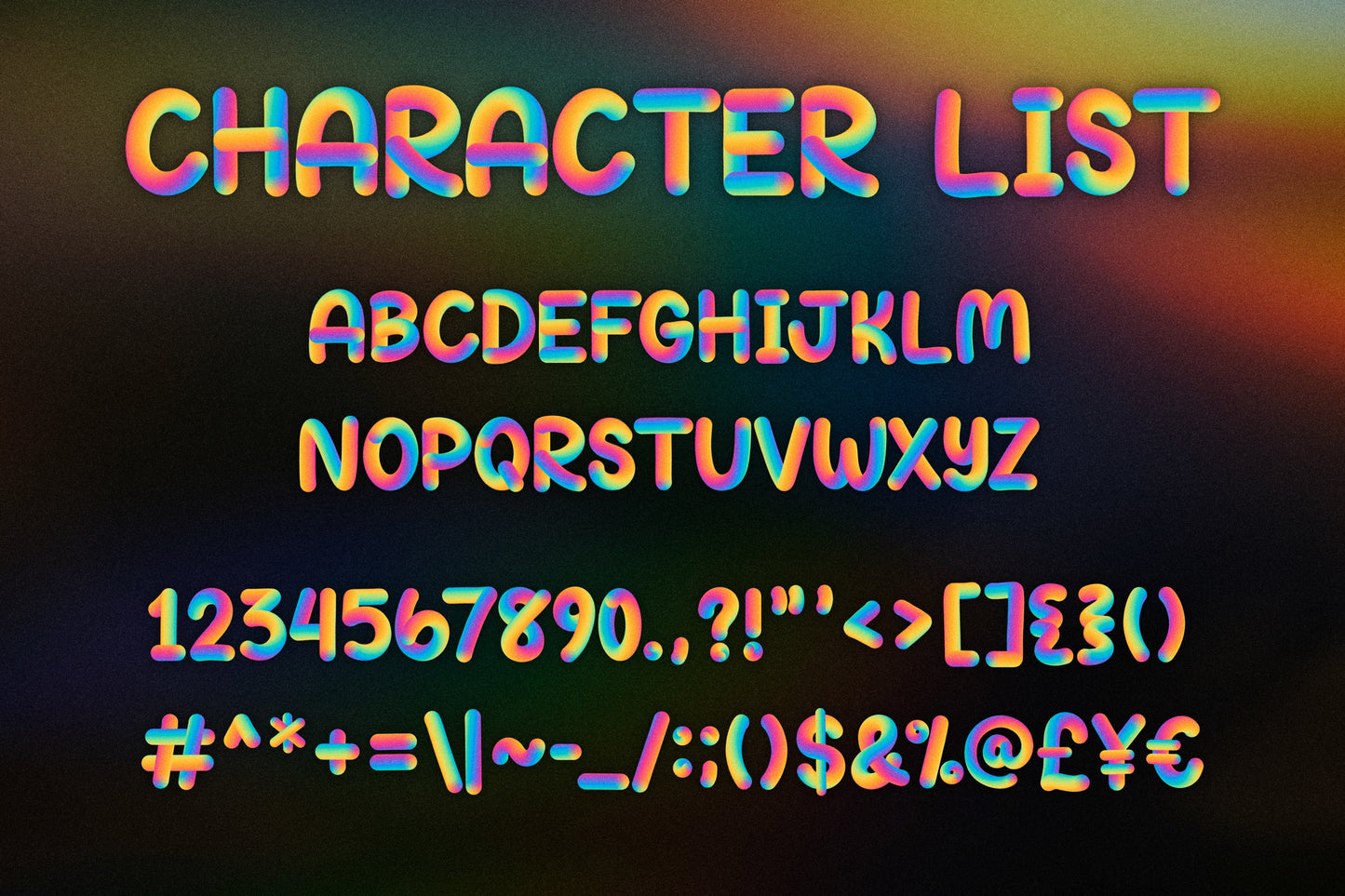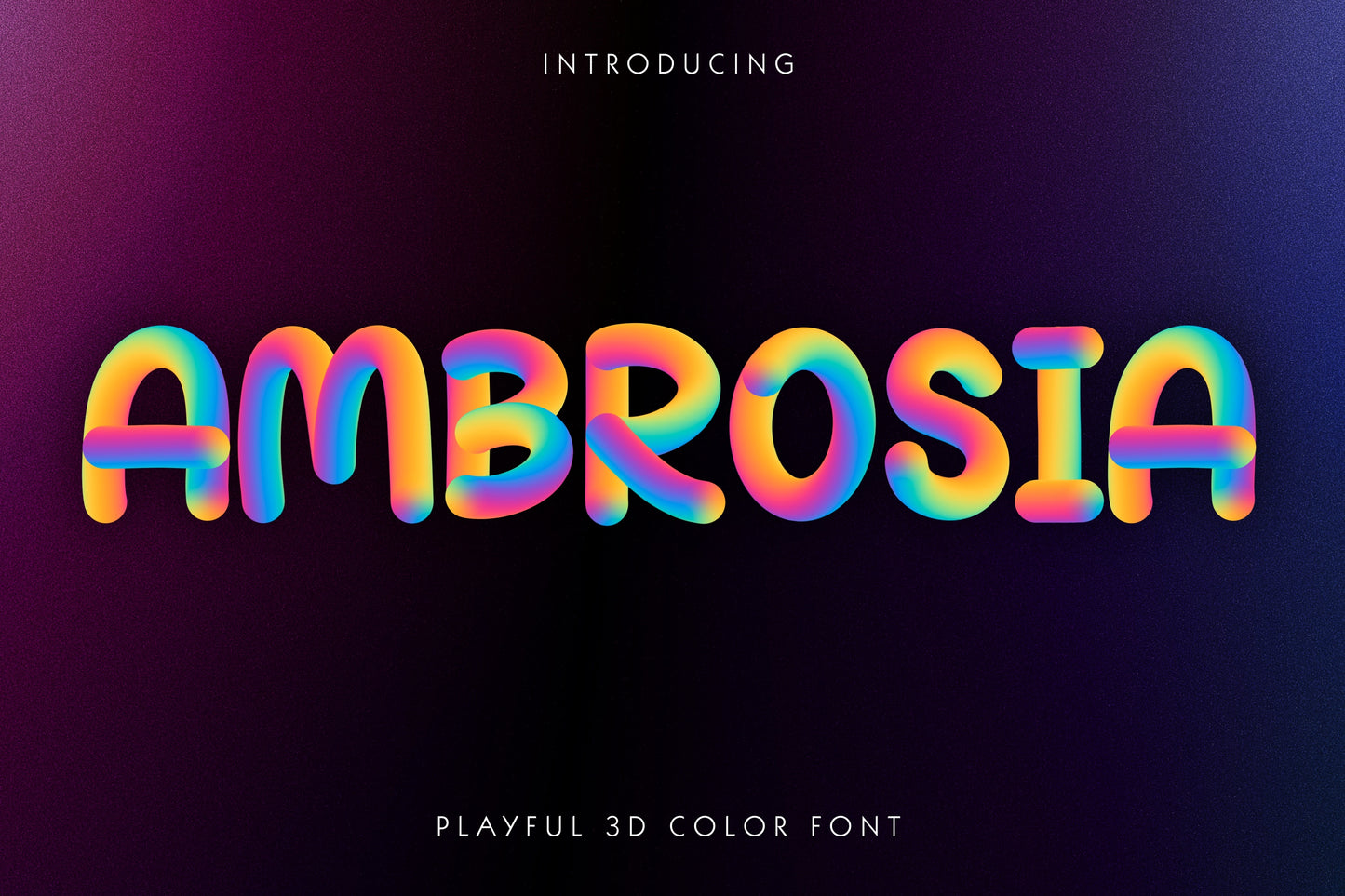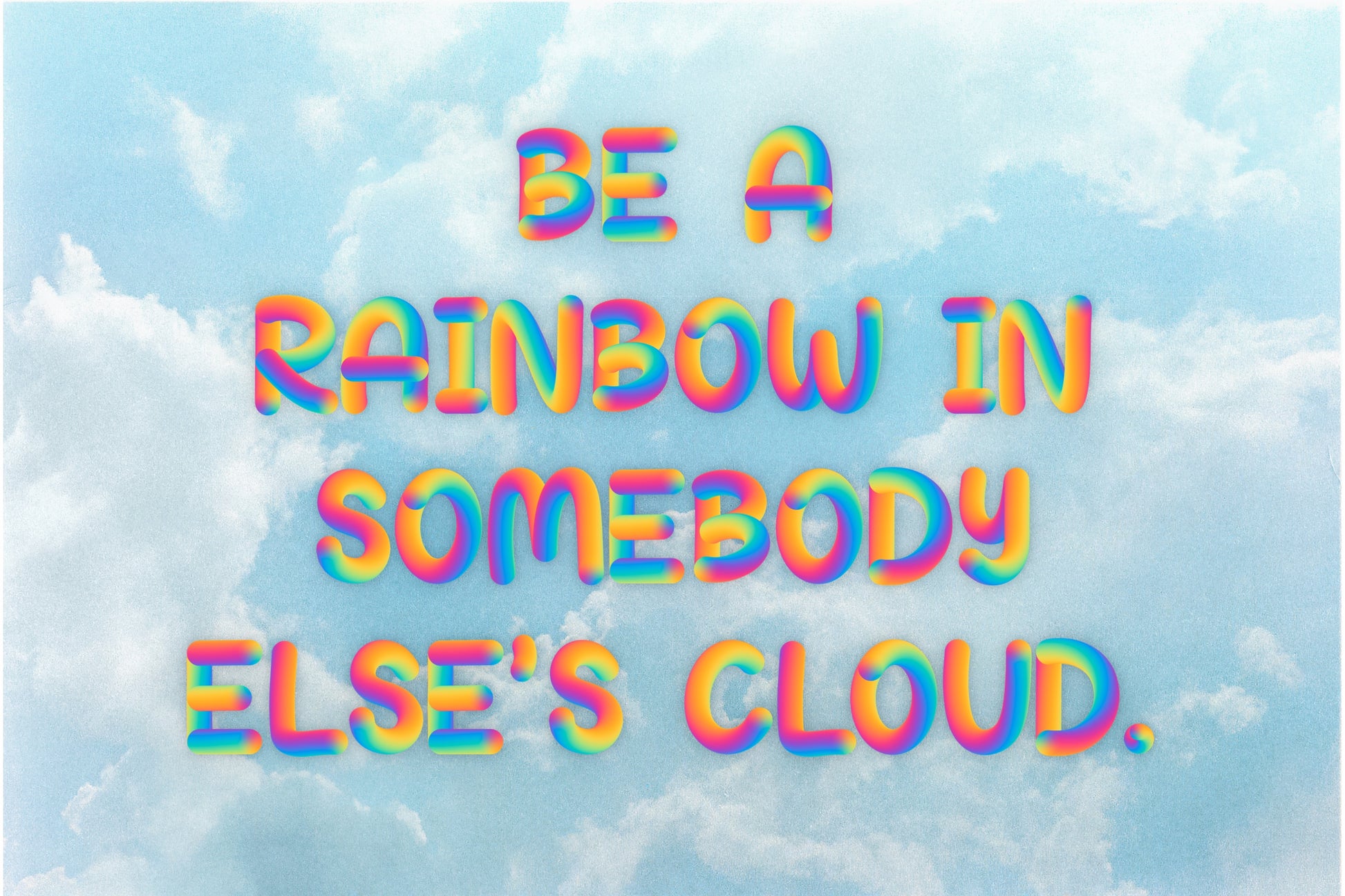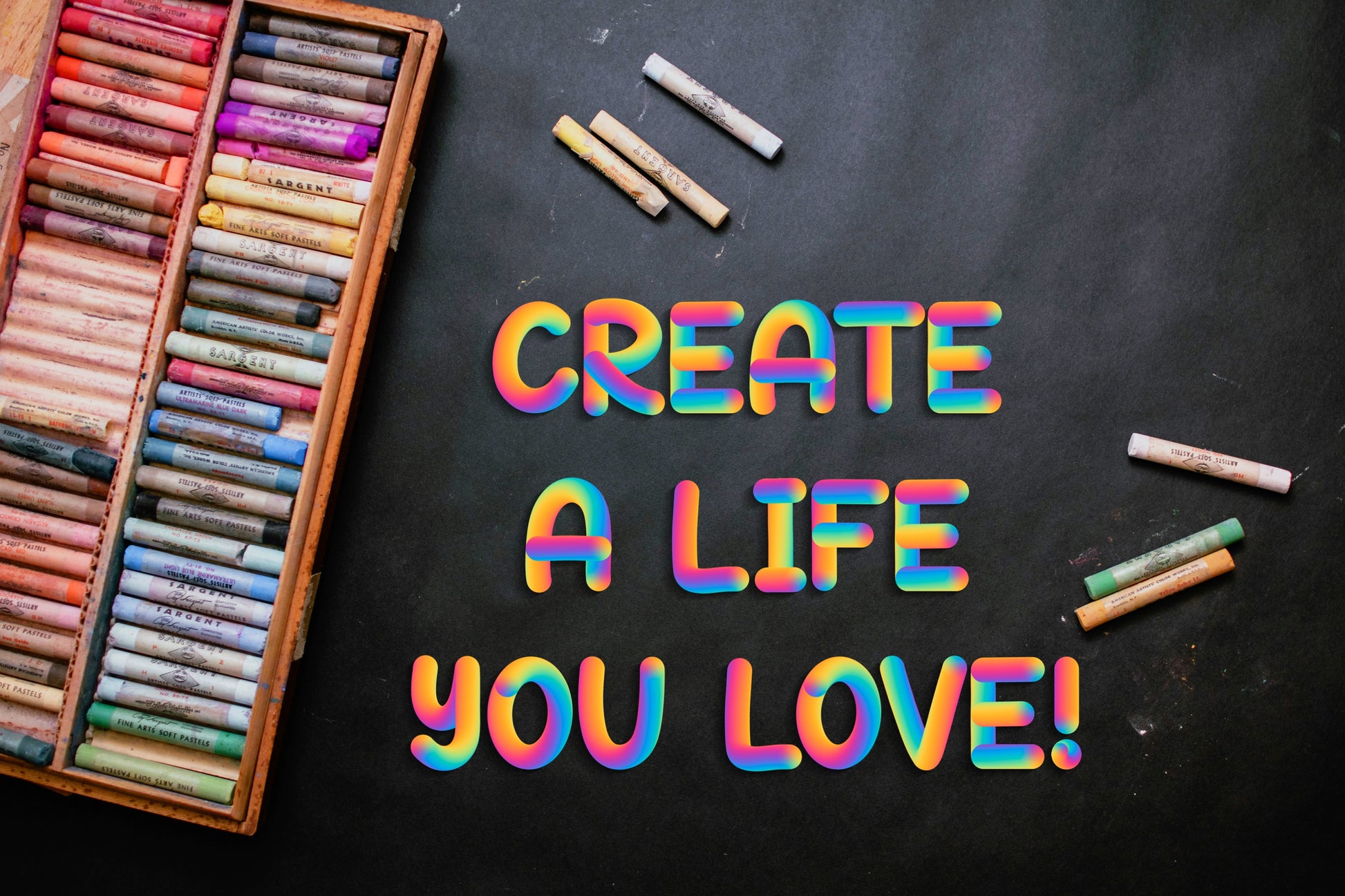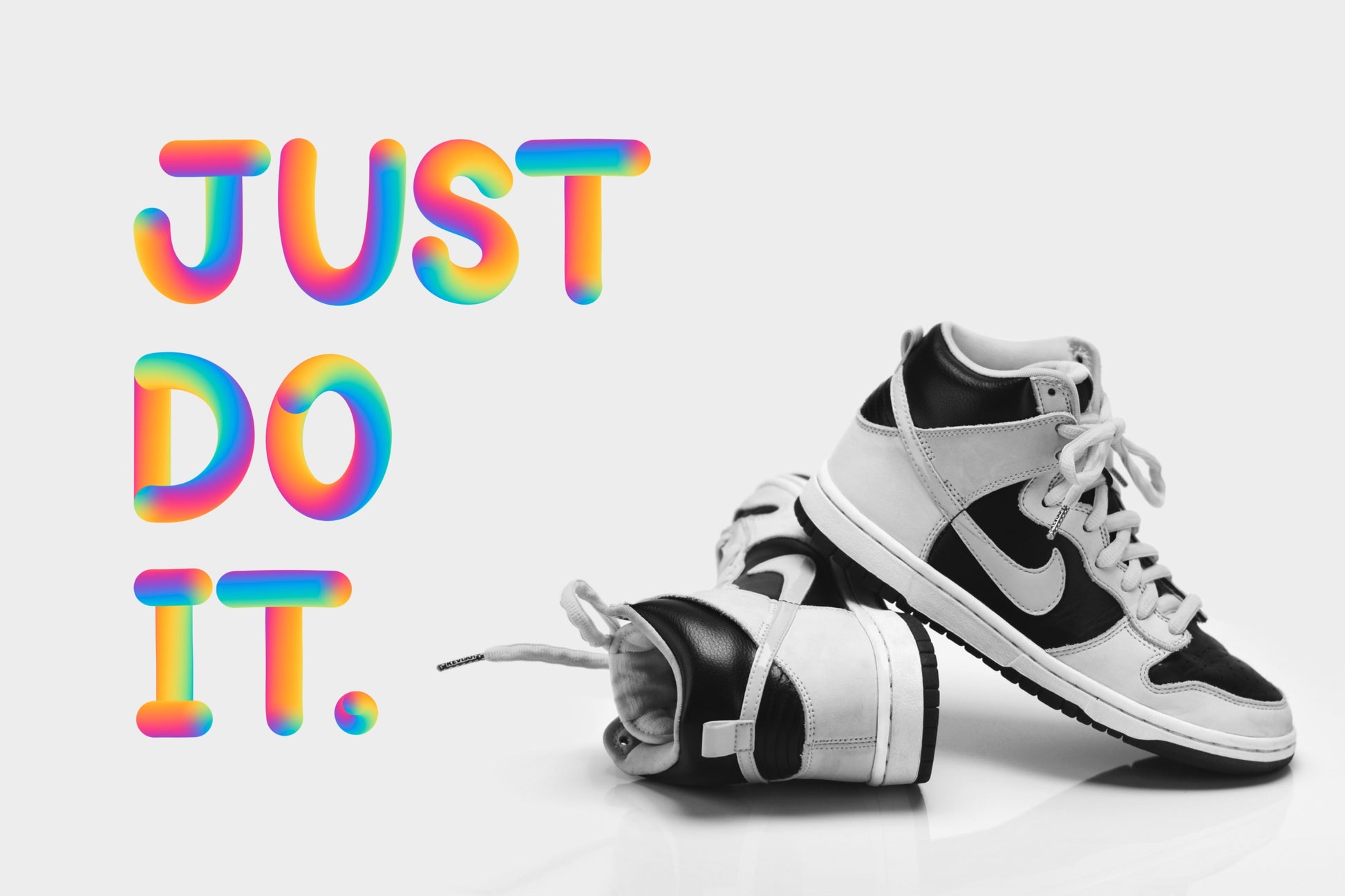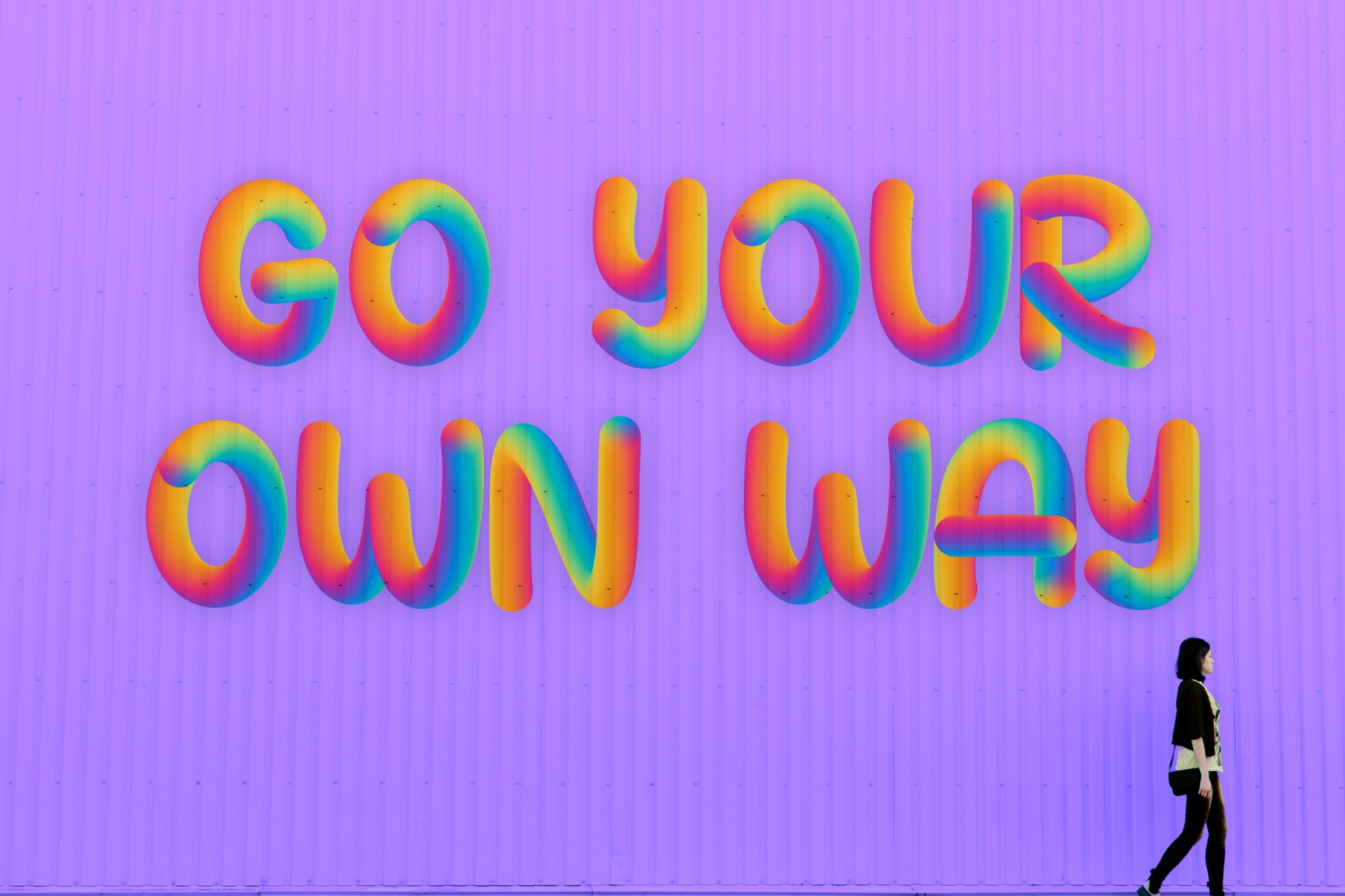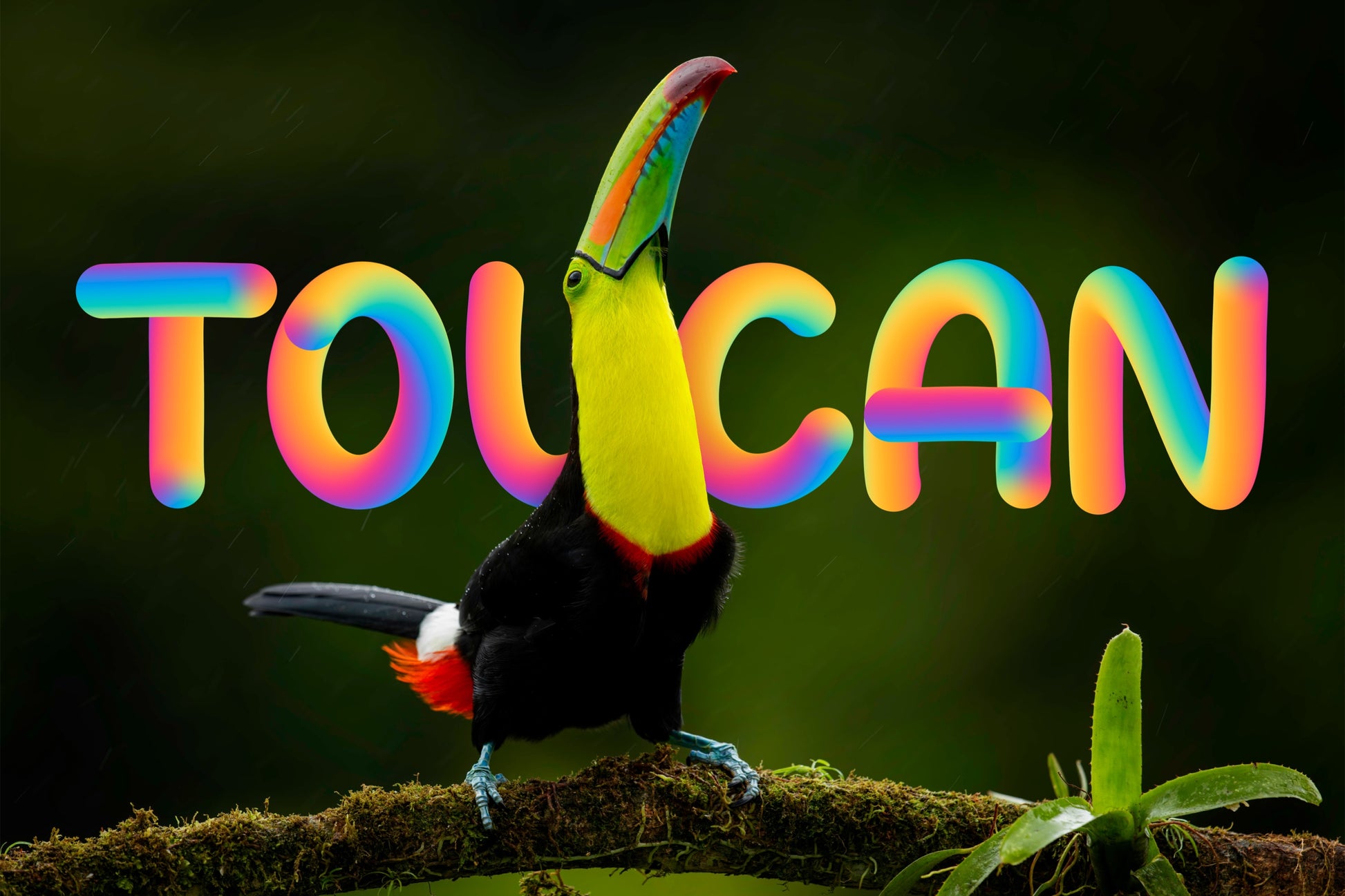
Ambrosia Handwritten Font
Introducing the Ambrosia color font! This unique, 3D handwritten font is full of bright, joyous colors that will lift the mood of any piece it is used in. It would be absolutely perfect for casual, playful designs on stickers, invitations, flyers, t-shirts, posters, children’s branding, magazines, and much more!